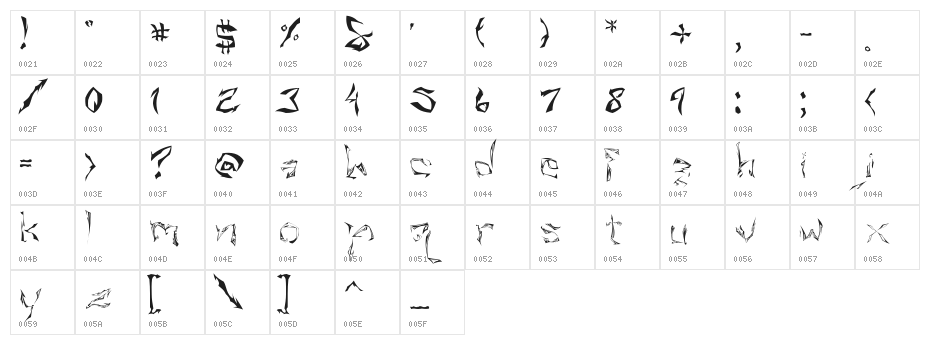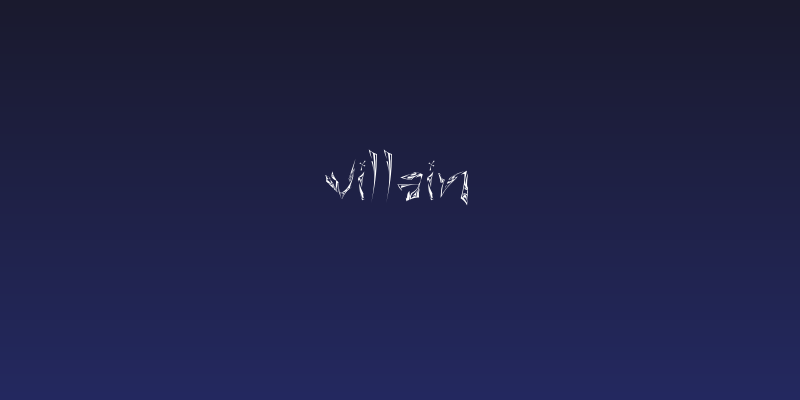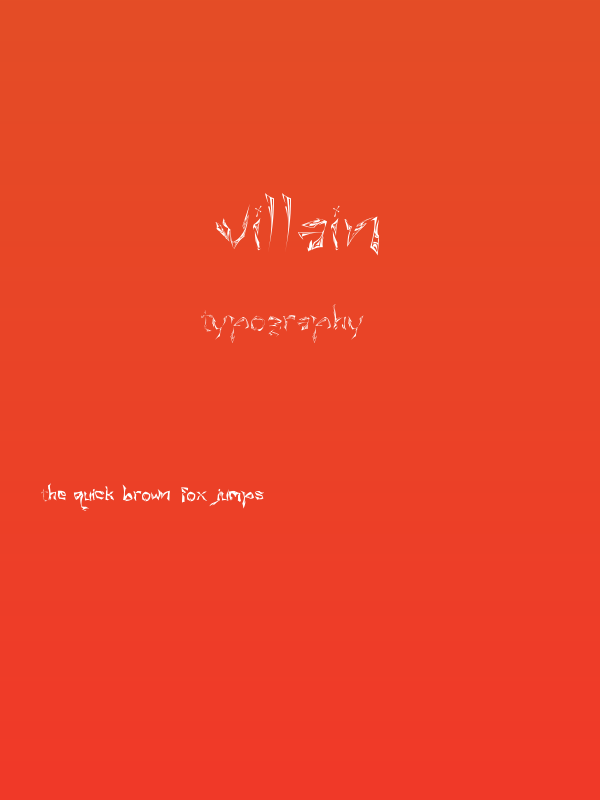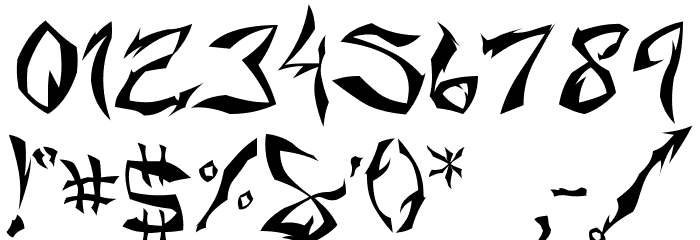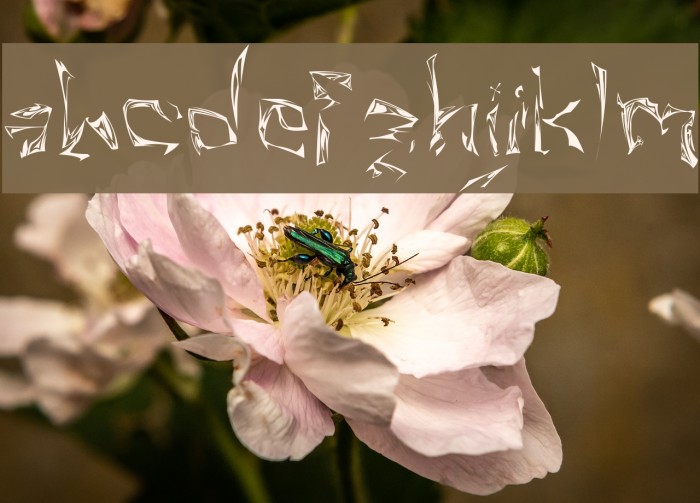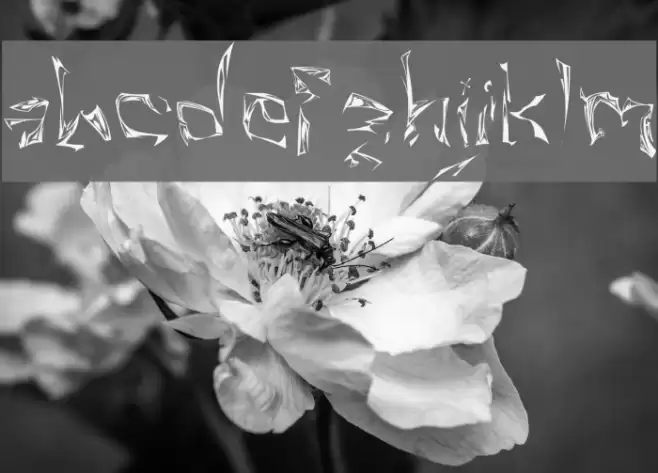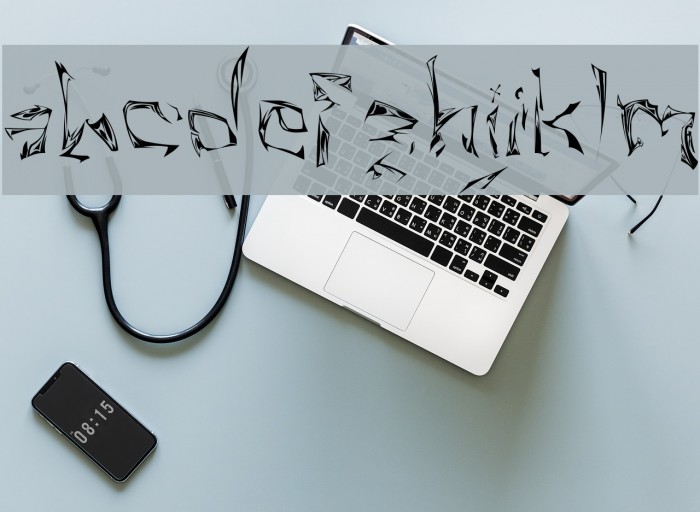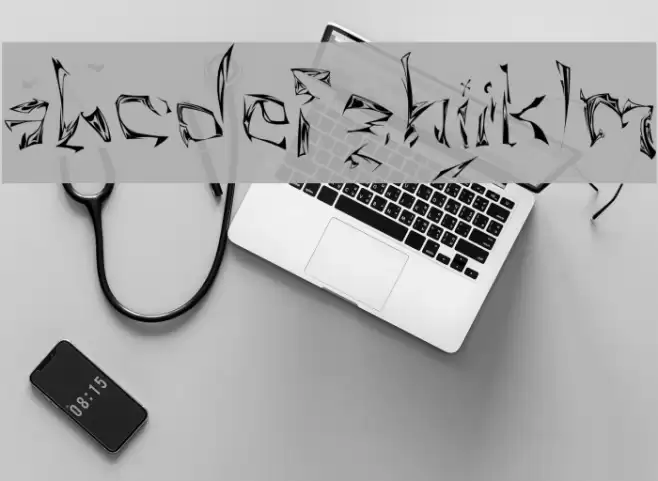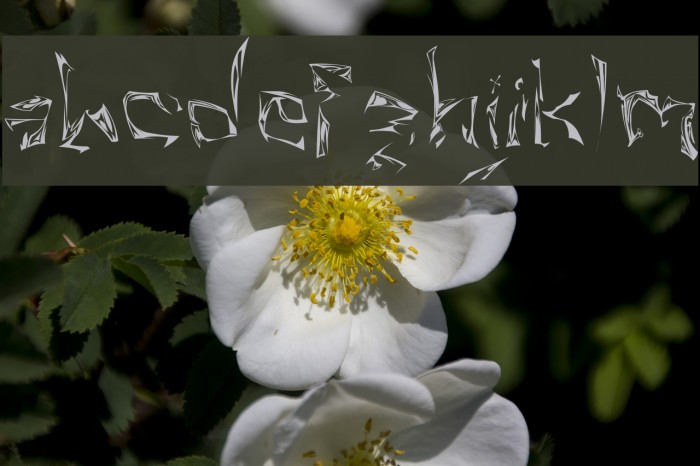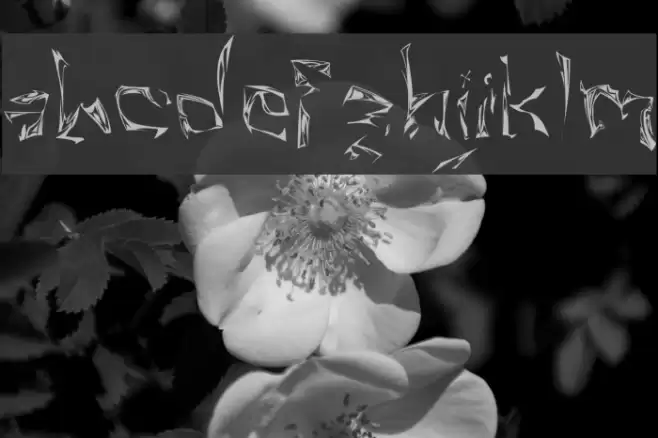
Villain Font
Villain Description
This font features a highly stylized and jagged design, reminiscent of sharp, angular graffiti or a chaotic, villainous theme. The characters are bold and aggressive, with exaggerated points and edges that create a sense of movement and intensity. The uppercase and lowercase letters maintain a consistent style, with each character appearing as if it has been carved or slashed into place. Numbers and special characters follow the same aesthetic, ensuring a cohesive look across all elements. This font is designed to capture attention and convey a sense of danger or rebellion.
| Overall Style | Modern, Decorative |
| Proposed Projects | Ideal for use in video game titles, movie posters, or any project requiring a dramatic and edgy look. |